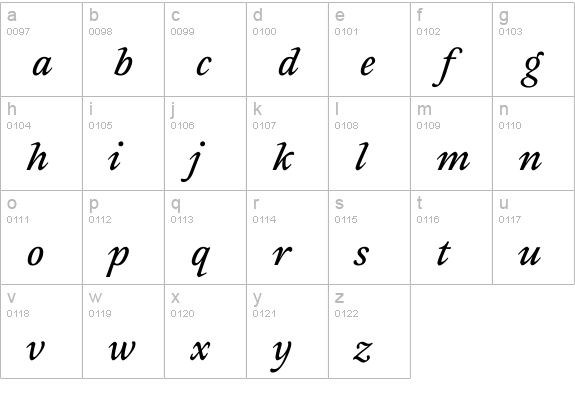
The Sovereign-MediumItalic font is a stunning typeface that exudes elegance and sophistication. Its medium italic style adds a touch of grace and fluidity to any design or project. This font effortlessly combines modern aesthetics with a timeless appeal, making it suitable for a wide range of creative endeavors. With its clean lines and balanced proportions, Sovereign-MediumItalic captures attention and conveys a sense of professionalism. Whether you're designing a logo, creating a website, or crafting a captivating headline, this font has the versatility to elevate your work to new heights. One of the best aspects of the Sovereign-MediumItalic font is that it is available for free. That's right, you can freely download this remarkable typeface at FontsMarket.com. This means that you can enhance your designs without any additional cost, making it an ideal choice for both personal and commercial projects. The creators of Sovereign-MediumItalic have paid careful attention to every detail, ensuring that each letter is meticulously crafted to perfection. The result is a font that is not only visually striking but also highly legible, ensuring that your message is conveyed with clarity. Whether you're designing brochures, business cards, or invitations, the Sovereign-MediumItalic font will undoubtedly make a lasting impression. Its refined and sophisticated aesthetic sets it apart from other fonts, adding a touch of class to any project. So, why wait? Take advantage of the opportunity to freely download the Sovereign-MediumItalic font at FontsMarket.com. Let this exceptional typeface transform your designs into works of art, leaving a lasting impression on anyone who encounters them.